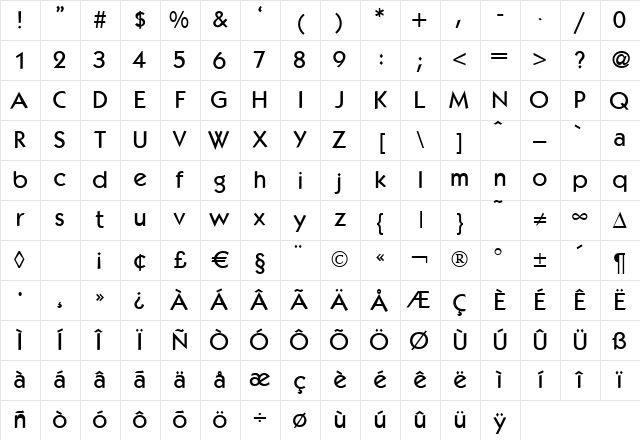
Geometrical-K792-Medium Regular
Design Context for Geometrical-K792-Medium
Geometrical-K792-Medium is a composed and adaptable typeface that performs quietly and consistently across a wide range of design contexts.